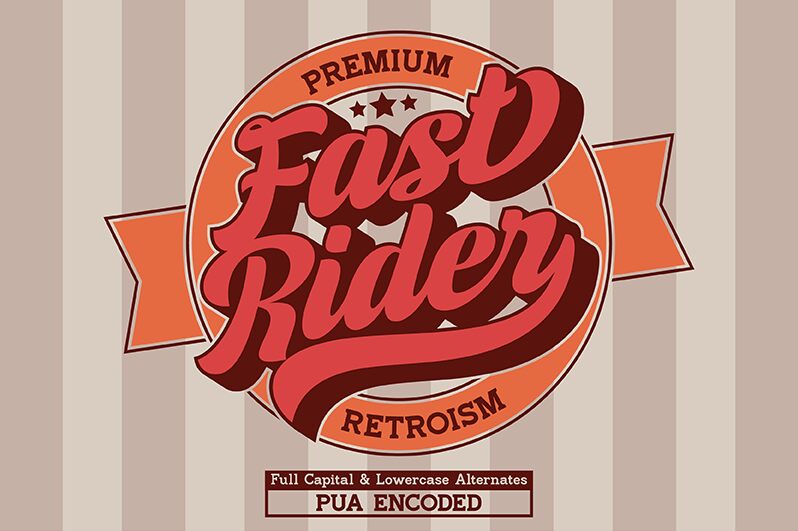
Fast Rider, designed by Sign Studio, is a captivating retro brush font that exudes boldness and confidence. Its thick strokes and vintage appeal make it ideal for projects that require a touch of nostalgia and attitude. Perfect for creating eye-catching logos, trendy apparel designs, or memorable social media posts, Fast Rider adds an energetic vibe to any project. Whether you're working on an edgy streetwear brand or a throwback magazine cover, this typeface will effortlessly capture attention and leave a lasting impression. Let Fast Rider take your design journey to new heights!
Fast Rider
Fast Rider Typeface by Sign Studio